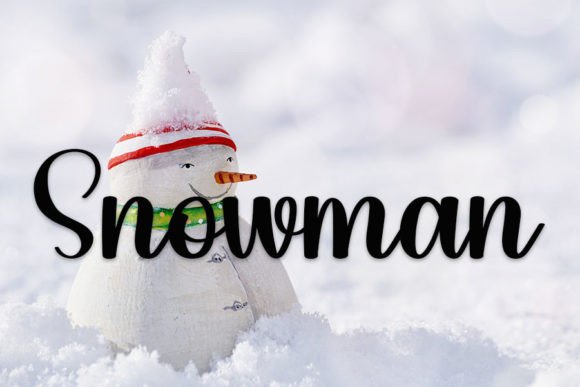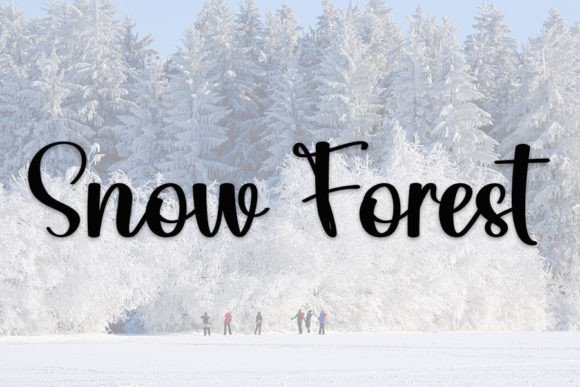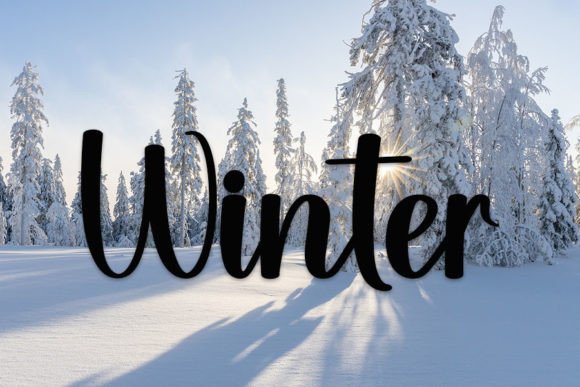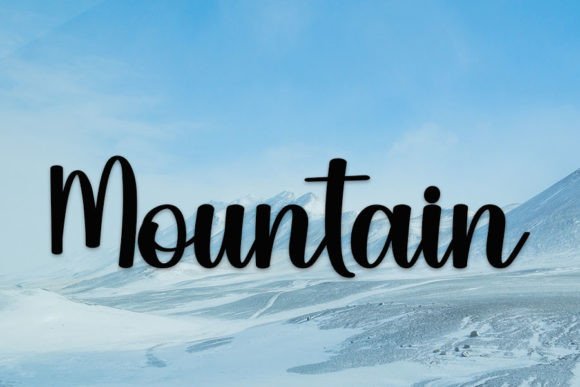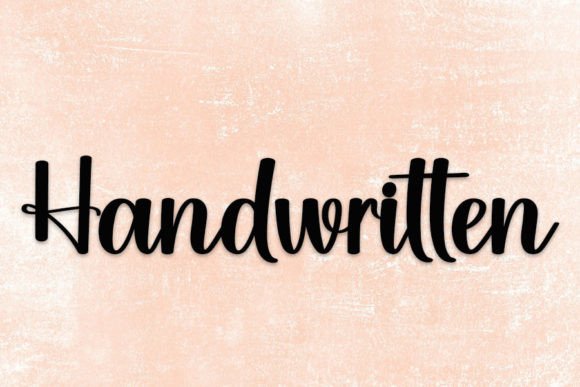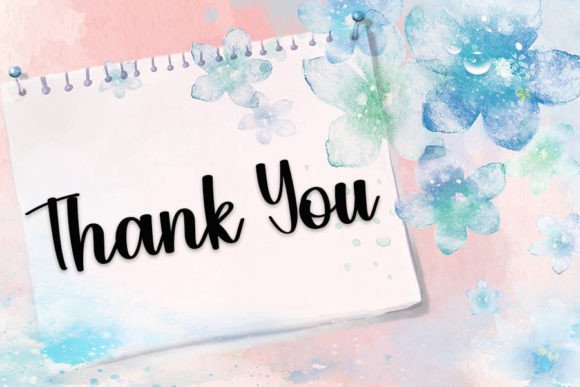
Introduction to Chilly Font
Chillyis a neat and beautiful handwritten font described by an elegant touch, perfect for your favorite projects Fall in love with its incredibly distinct and timeless style, and use it to create spectacular designs.
Chillyis a neat and beautiful handwritten font described by an elegant touch, perfect for your favorite projects Fall in love with its incredibly distinct and timeless style, and use it to create spec